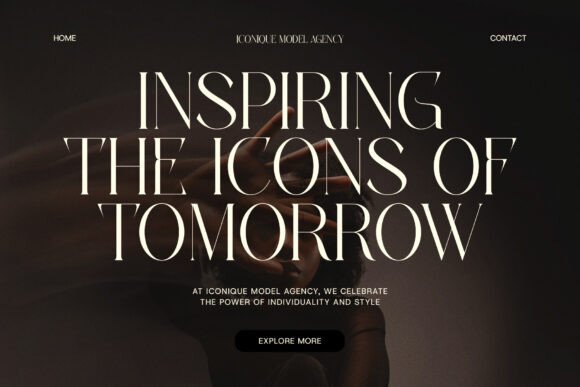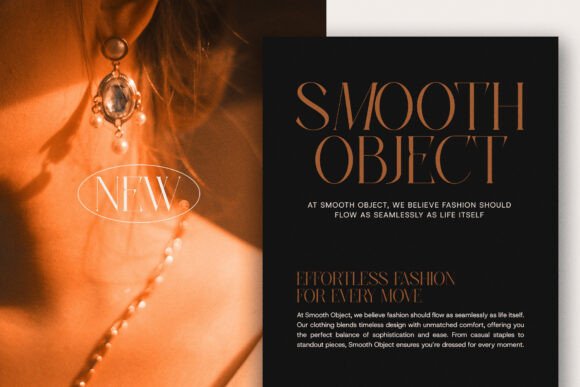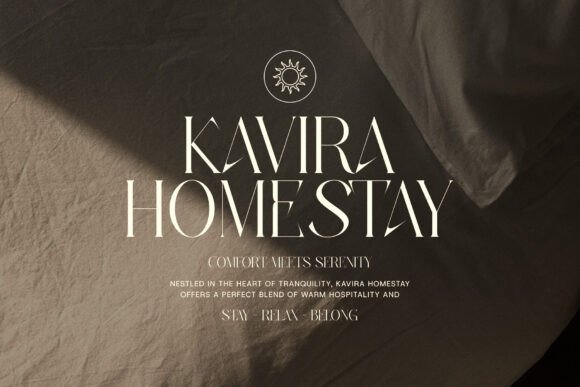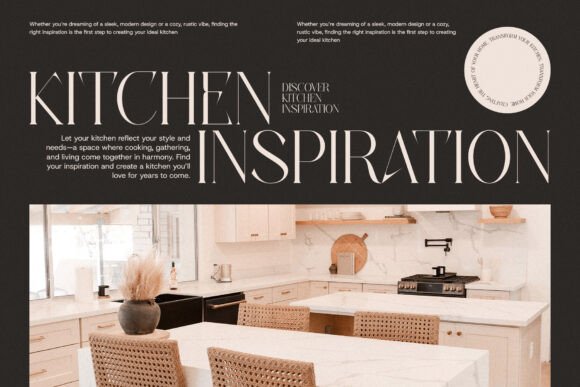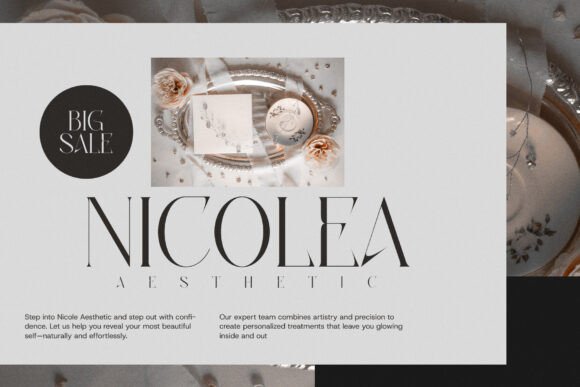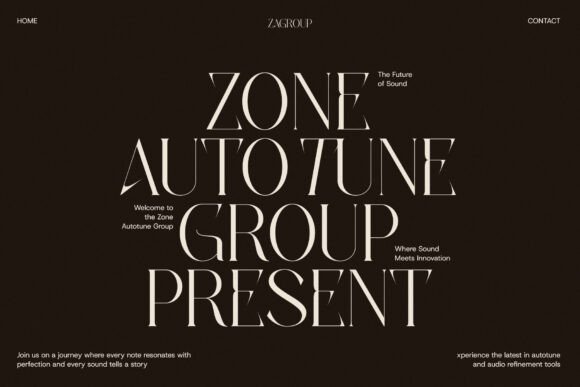
Introduction to Malvin Galante Font Font
Fonts play a crucial role in design, and the Malvin Galante Font font is a typeface that brings both character and versatility to any project. Whether you’re working on a branding project, a website, or a print design, the Malvin Galante Font font offers a unique style that can elevate your work.
Malvin Galante is a modern and luxurious typeface designed to bring sophistication and charm to any creative project.
With its refined serifs, graceful curves, and precise details, Malvin Galante strikes the perfect balance between contemporary style and timeless elegance Its standout feature lies in its unique ligatures and alternate forms, offering a wealth of creative possibilities to make your typography truly distinctive.
Key Features of Malvin Galante Font Font
Why Choose Malvin Galante Font Font?
The Malvin Galante Font font is more than just a typeface – it’s a design tool that helps you communicate your message with style and clarity. Its unique character set and versatile design make it suitable for a wide range of applications, from elegant invitations to bold headlines.
With its carefully crafted letterforms and balanced proportions, the Malvin Galante Font font ensures readability and visual appeal across all mediums.
What makes Malvin Galante Font font special?
The Malvin Galante Font font stands out with its unique design, exceptional readability, and versatility across various design applications.